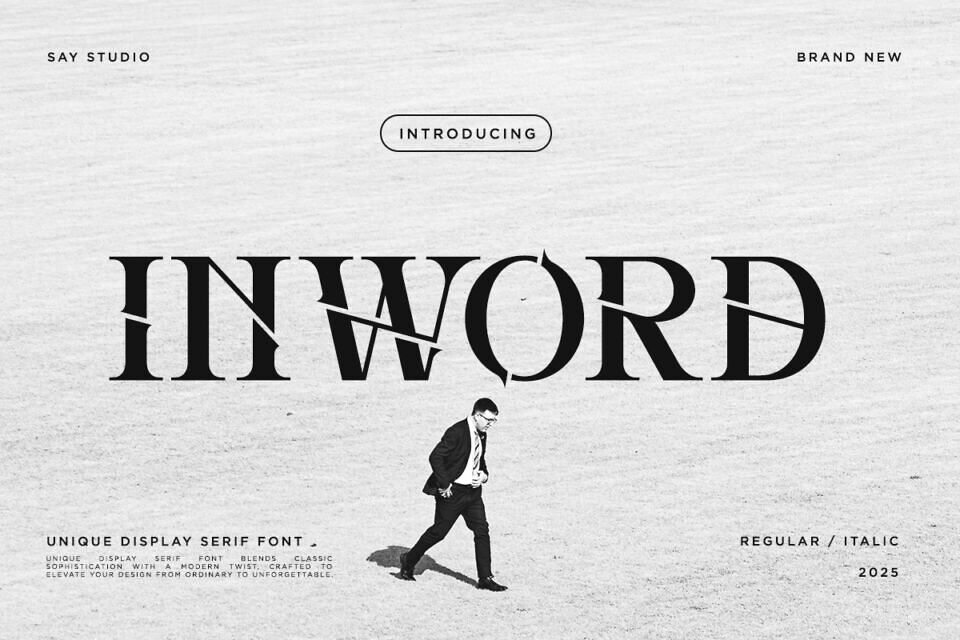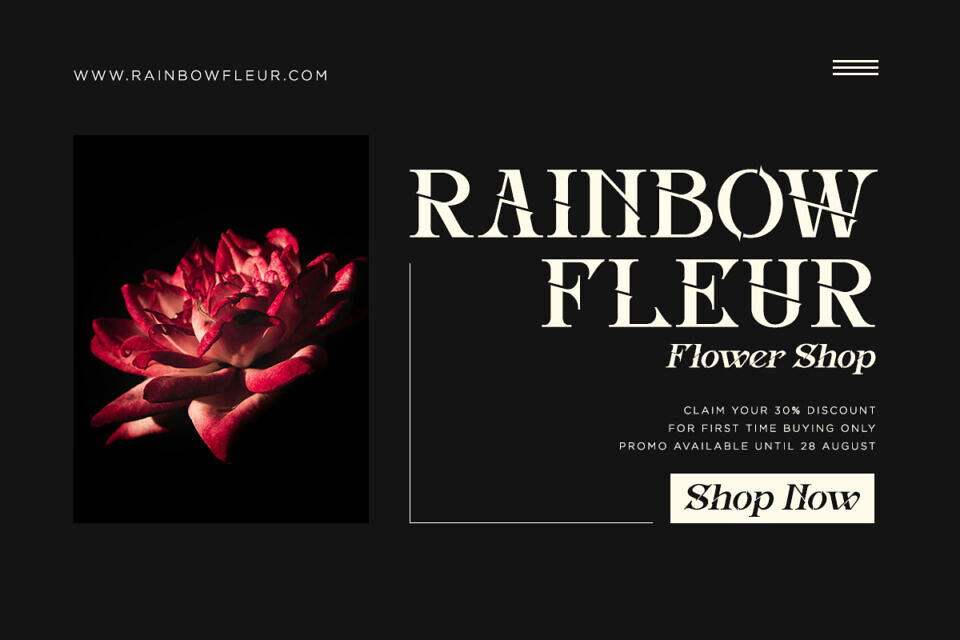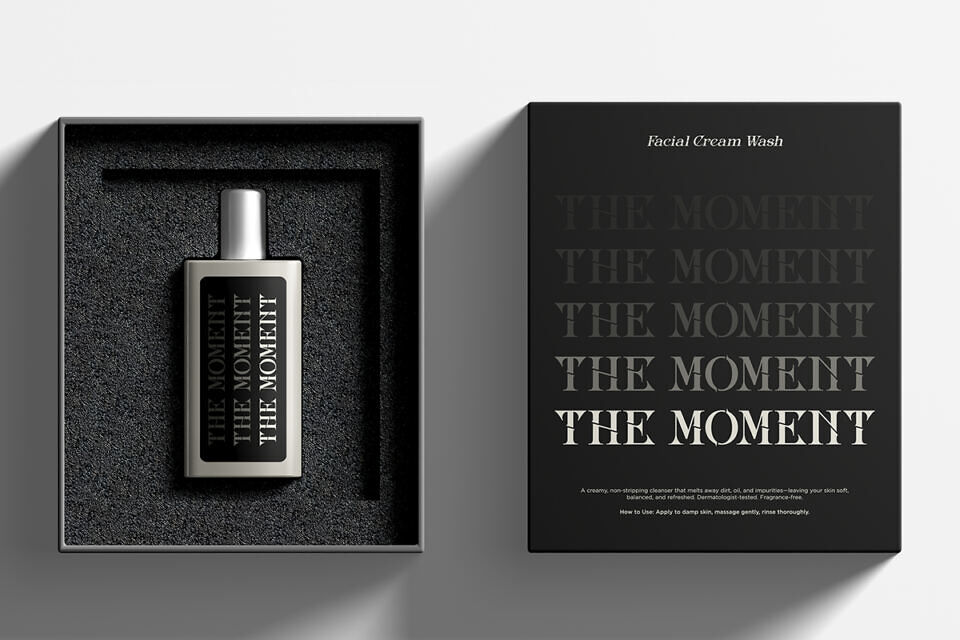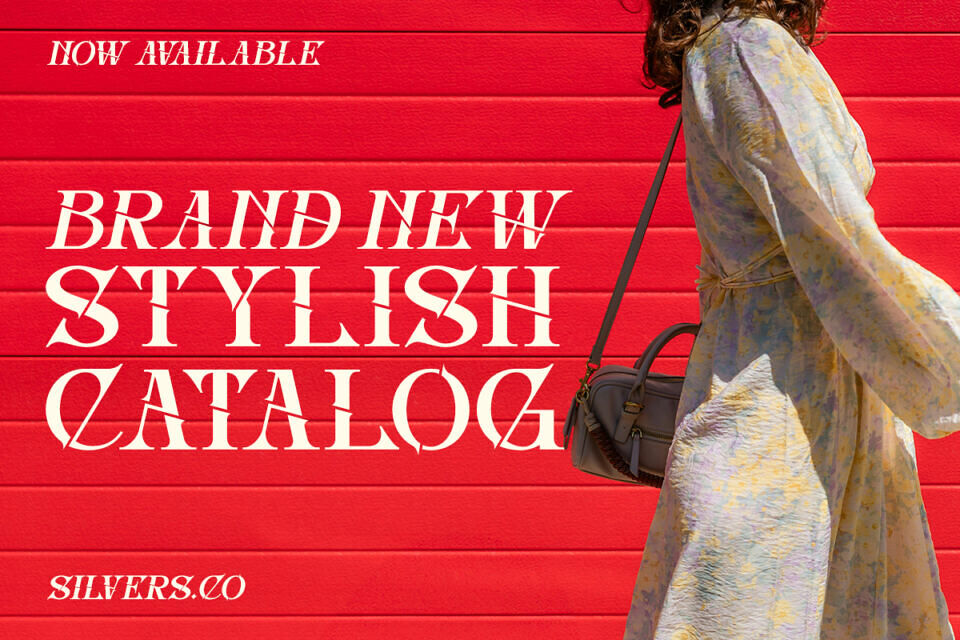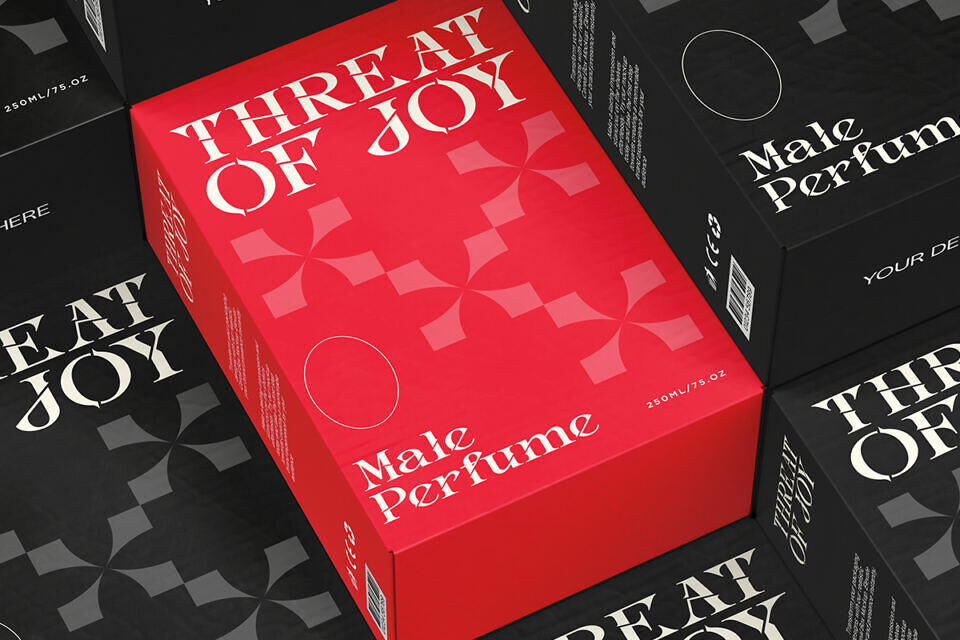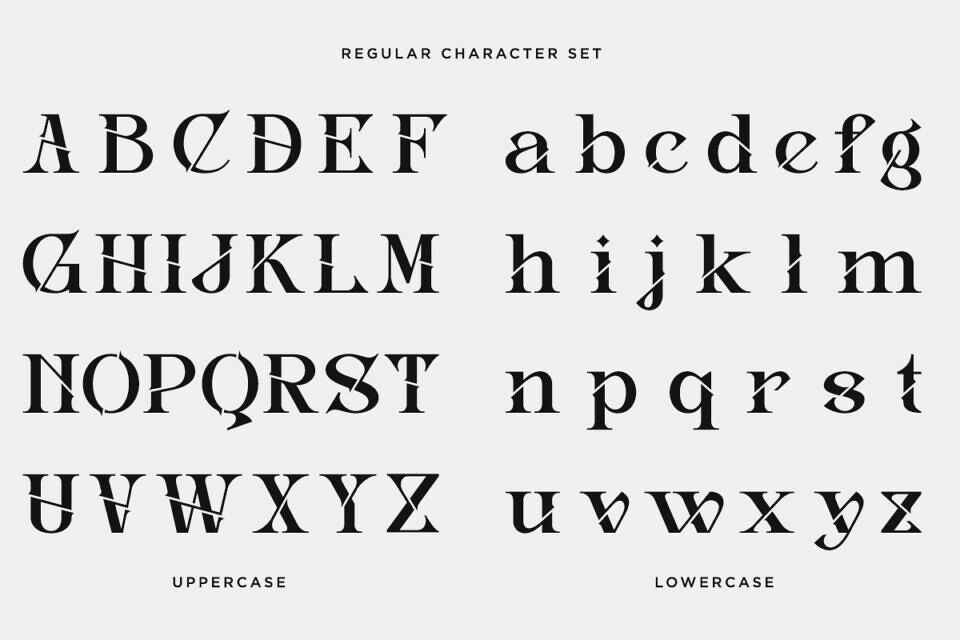
Inword Font
Inword is a unique display serif font. Transform the visual identity of your brand with this gorgeous typeface, which was painstakingly designed to radiate sophistication and grandeur.
This typeface is perfect for an elegant logo, branding, fashion brand, luxury brand, layout magazine, beauty product, packaging product, perfume, quotes, or simply as a stylish text overlay to any background image.